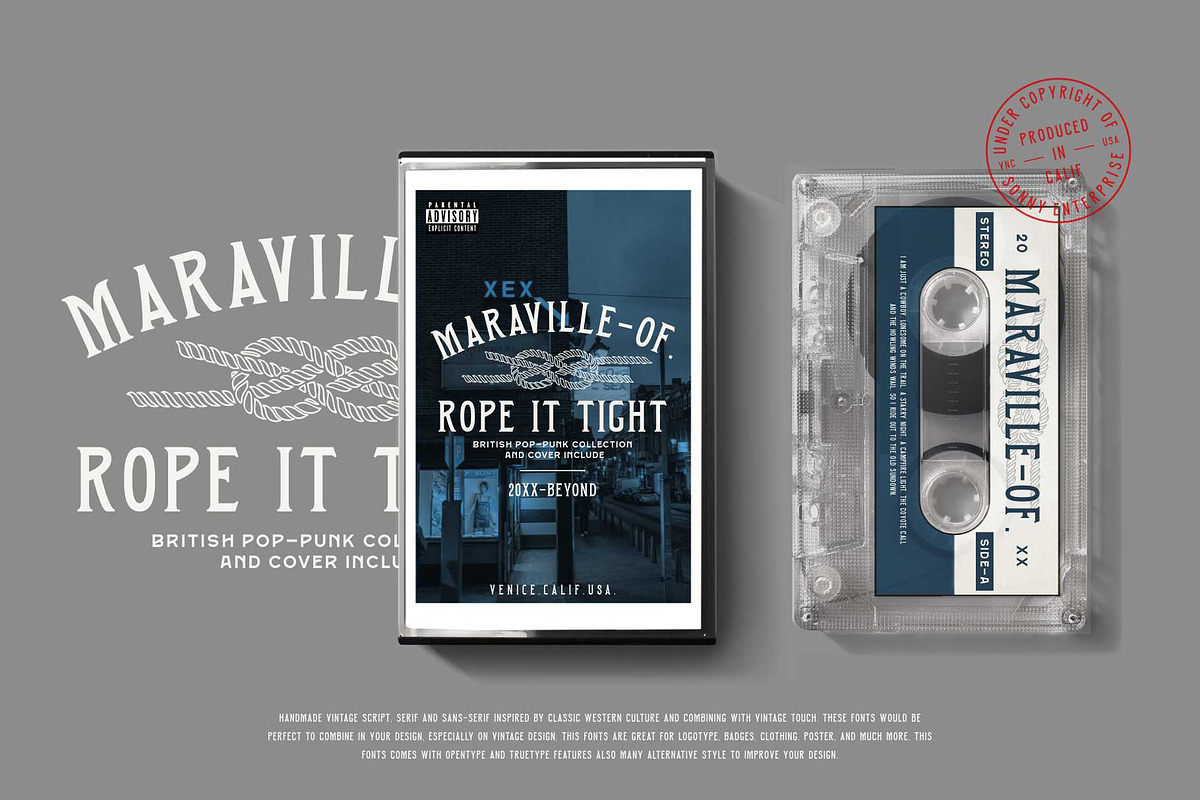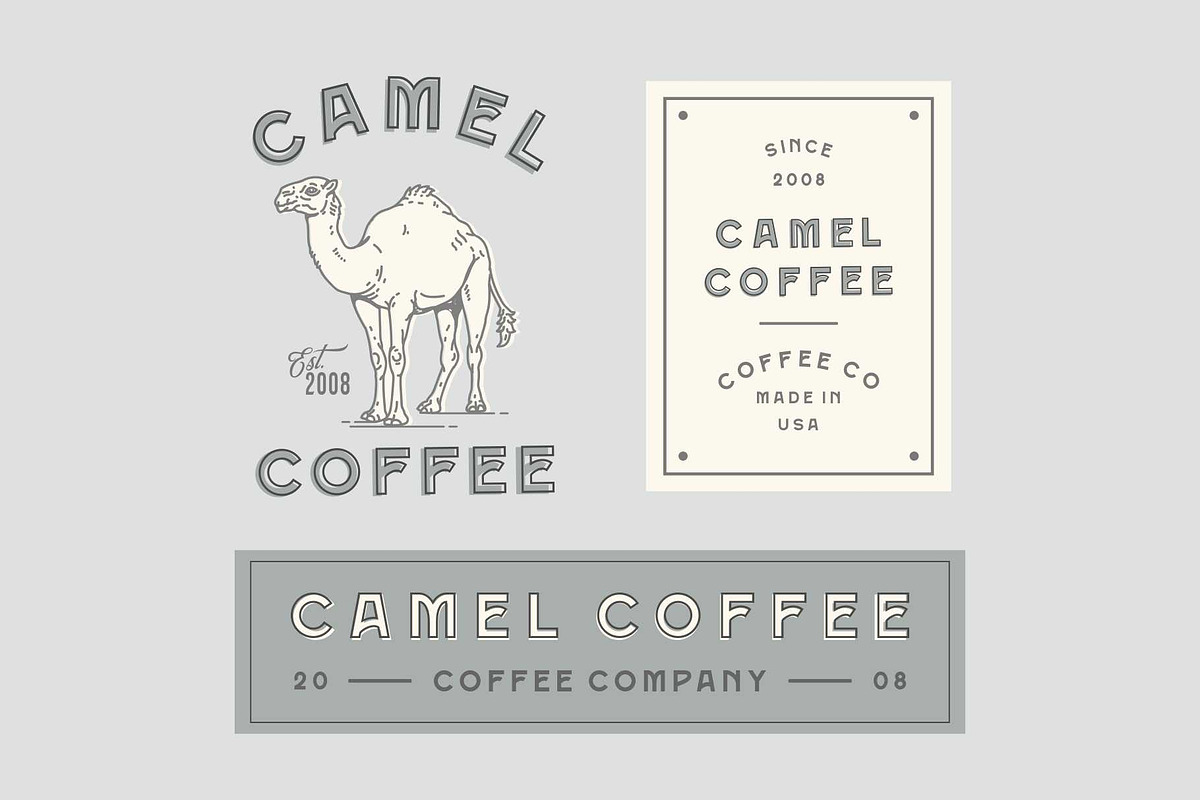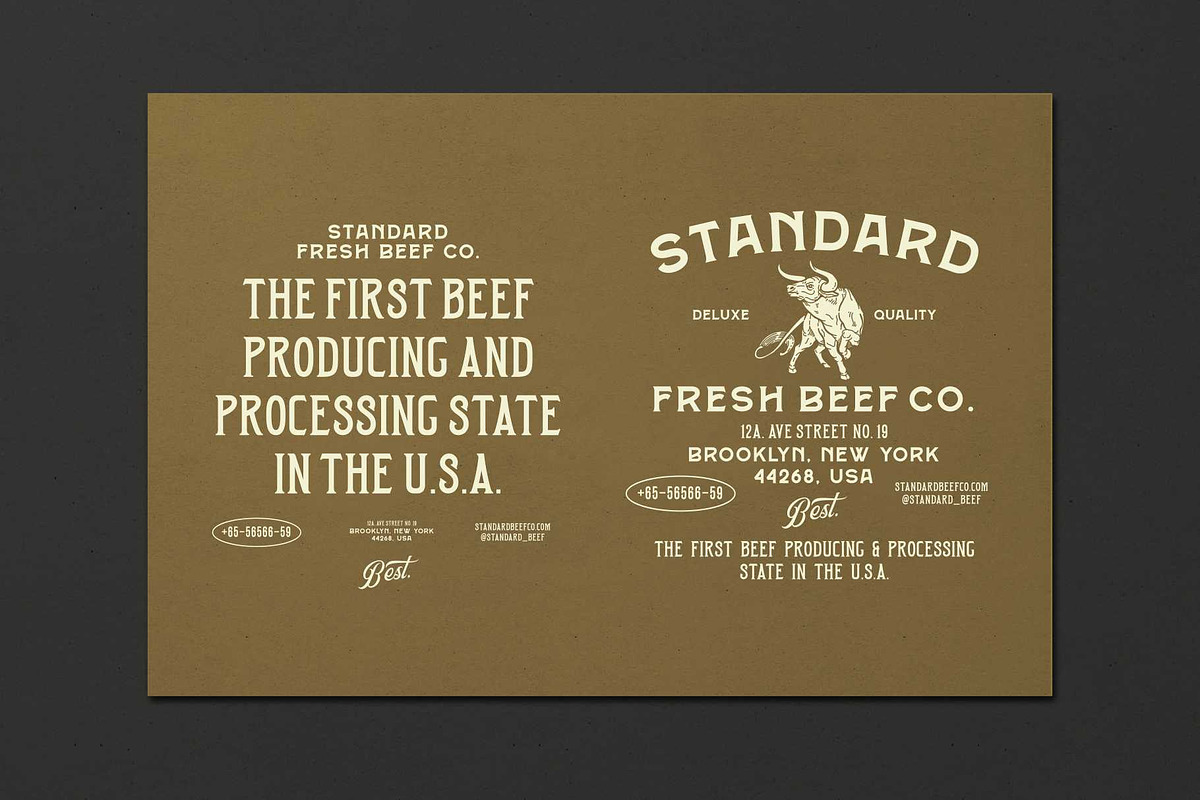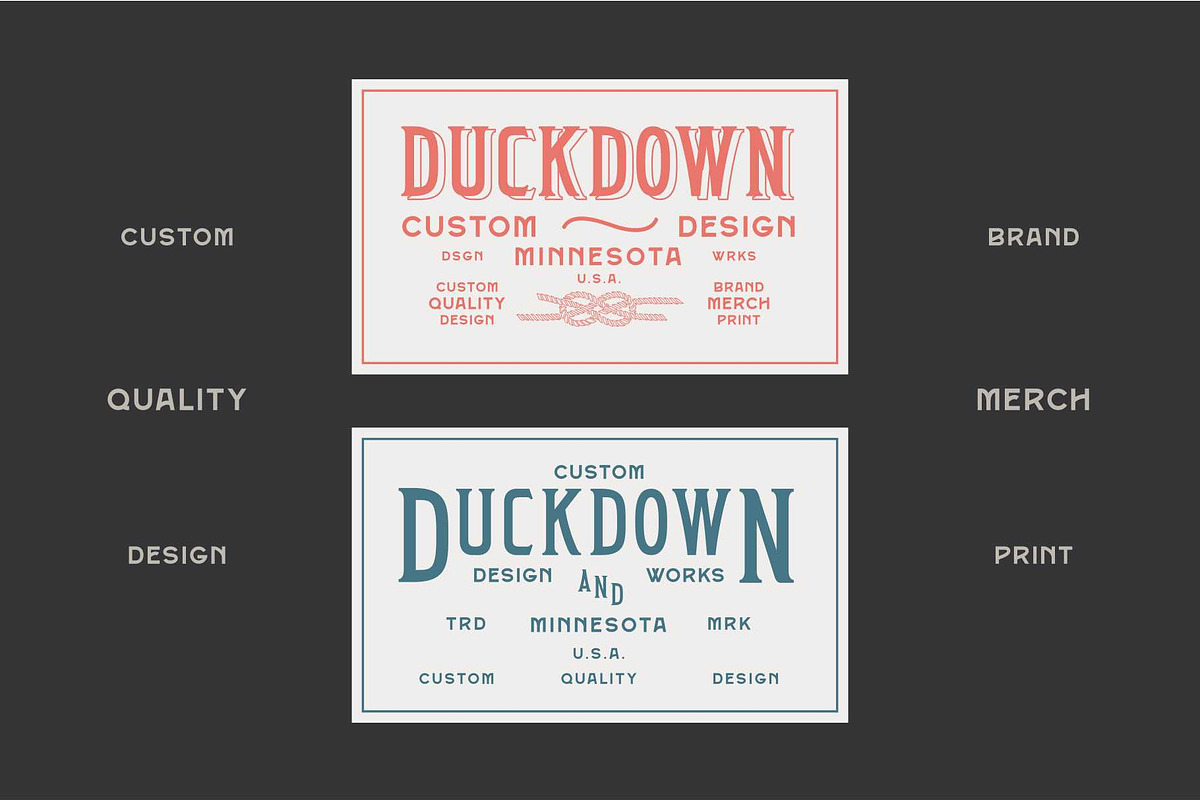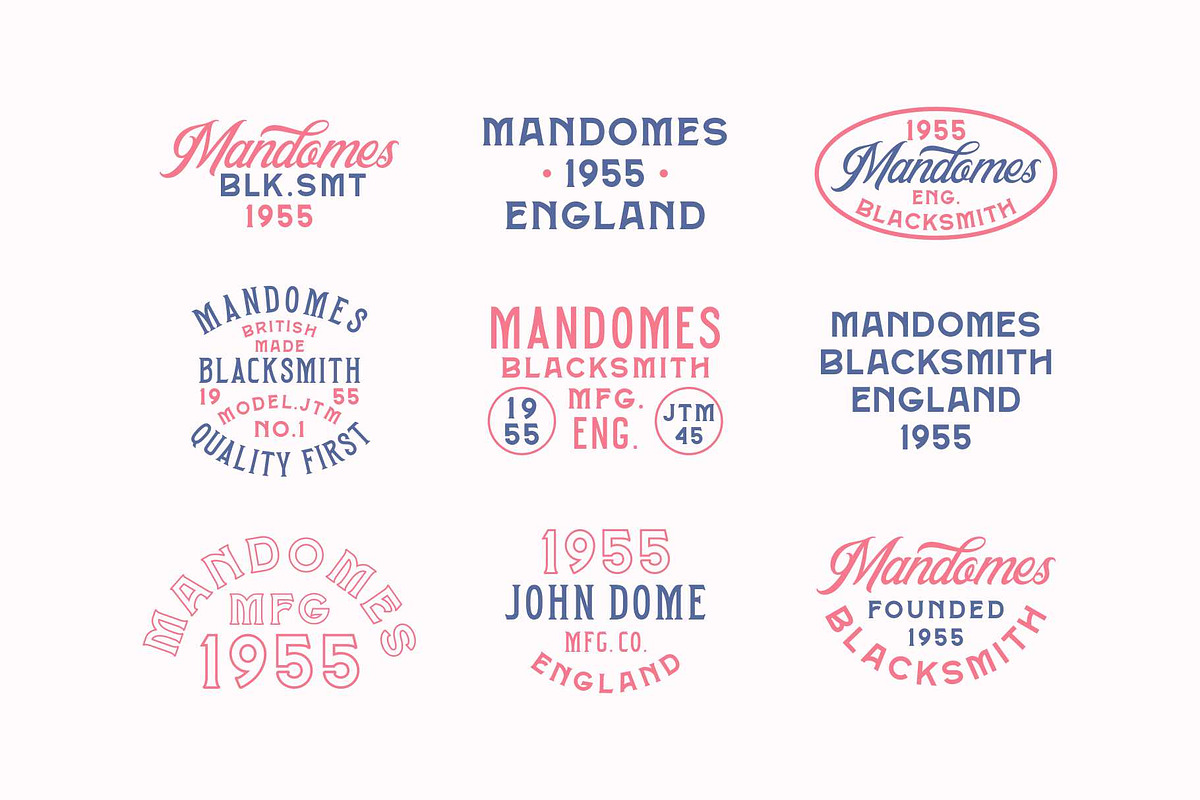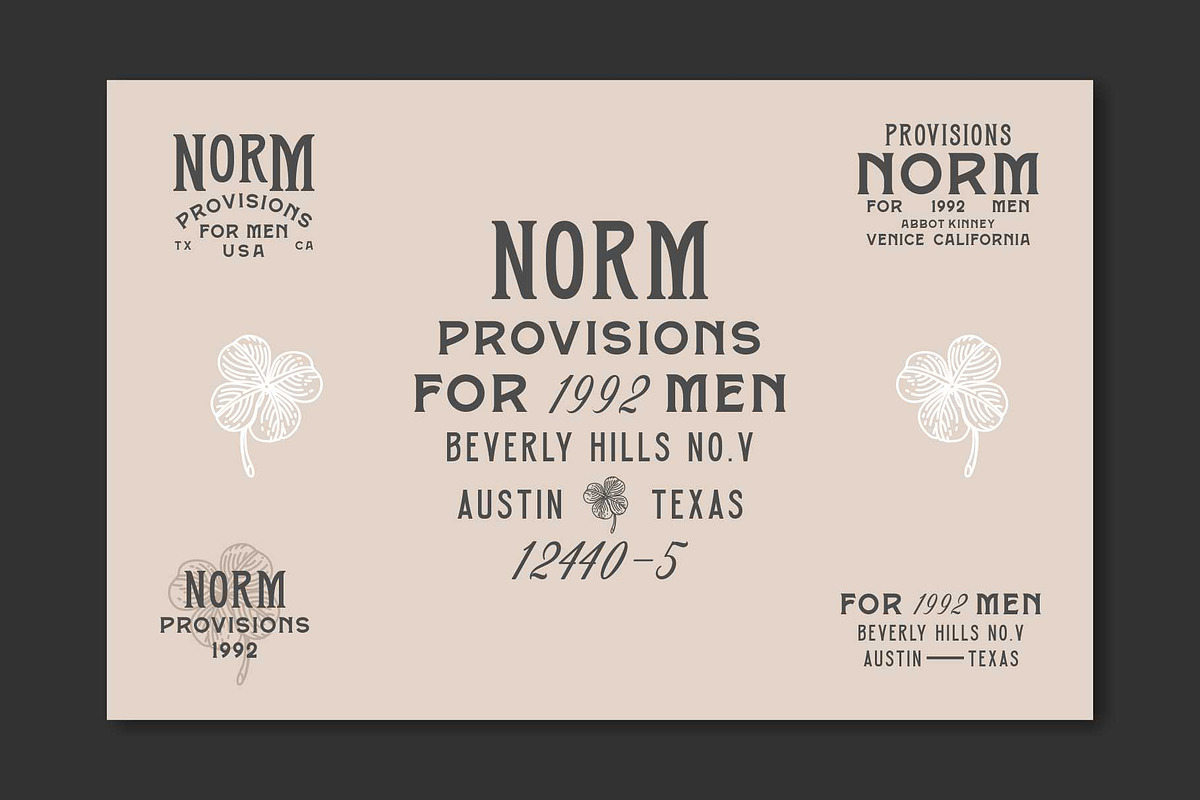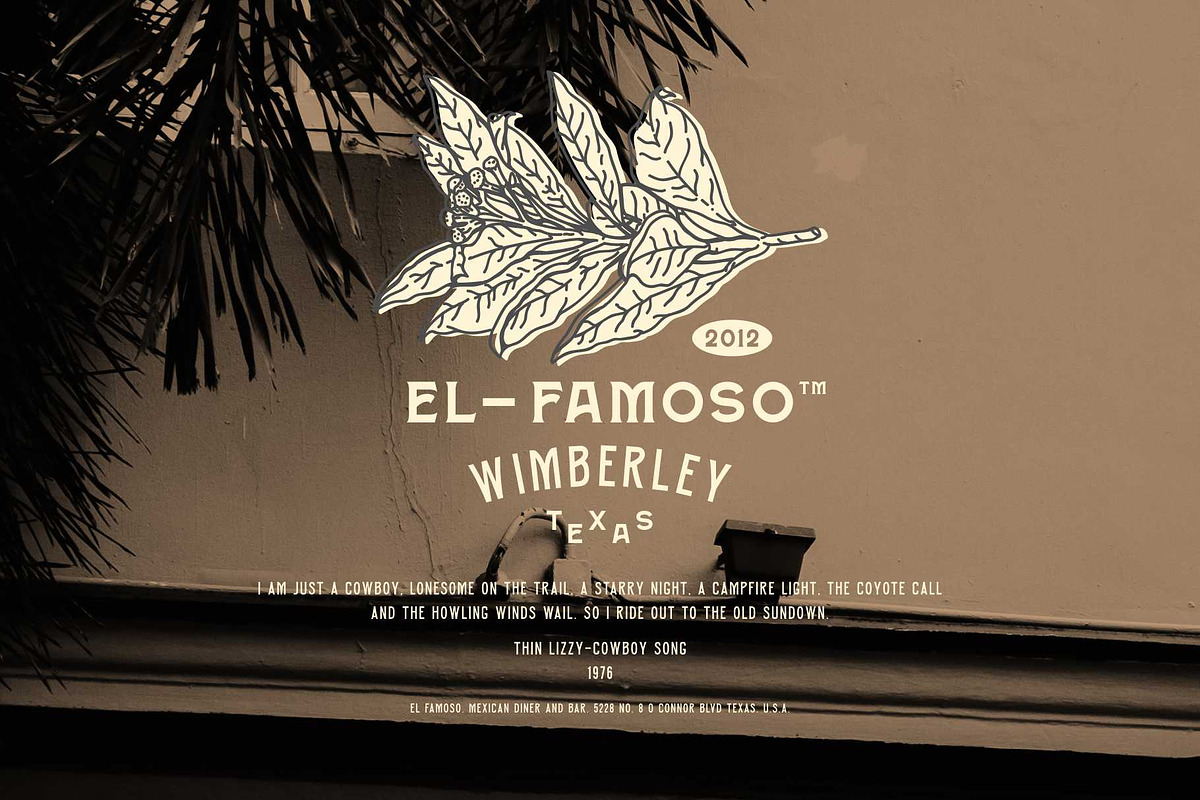
Roosevelt Font Family (Font Bundle)
ROOSEVELT FONT FAMILY + 26 PACK ILLUSTRATION
Roosevelt Font Family is handmade vintage script, serif and some serif fonts. Inspired by classic western culture, custom culture motorcycle and combining with vintage touch. There's so many fonts that would be perfect to combine in your design, especially on vintage design. With bonus illustration in this package, this fonts are great for logotype, badges, clothing, poster, and much more. This fonts comes with opentype features and adobe illustrator format for illustration pack also many alternative style to improve your design.
Uppercase and lowercase character (only uppercase for sans-serif and serif)
Numeral, Punctuation and Symbol
- With bonus illustration in this package, this fonts are great for logotype, badges, clothing, poster, and much more.
- Features Uppercase and lowercase character (only uppercase for sans-serif and serif) Numeral, Punctuation and Symbol Stylistic Alternates Op